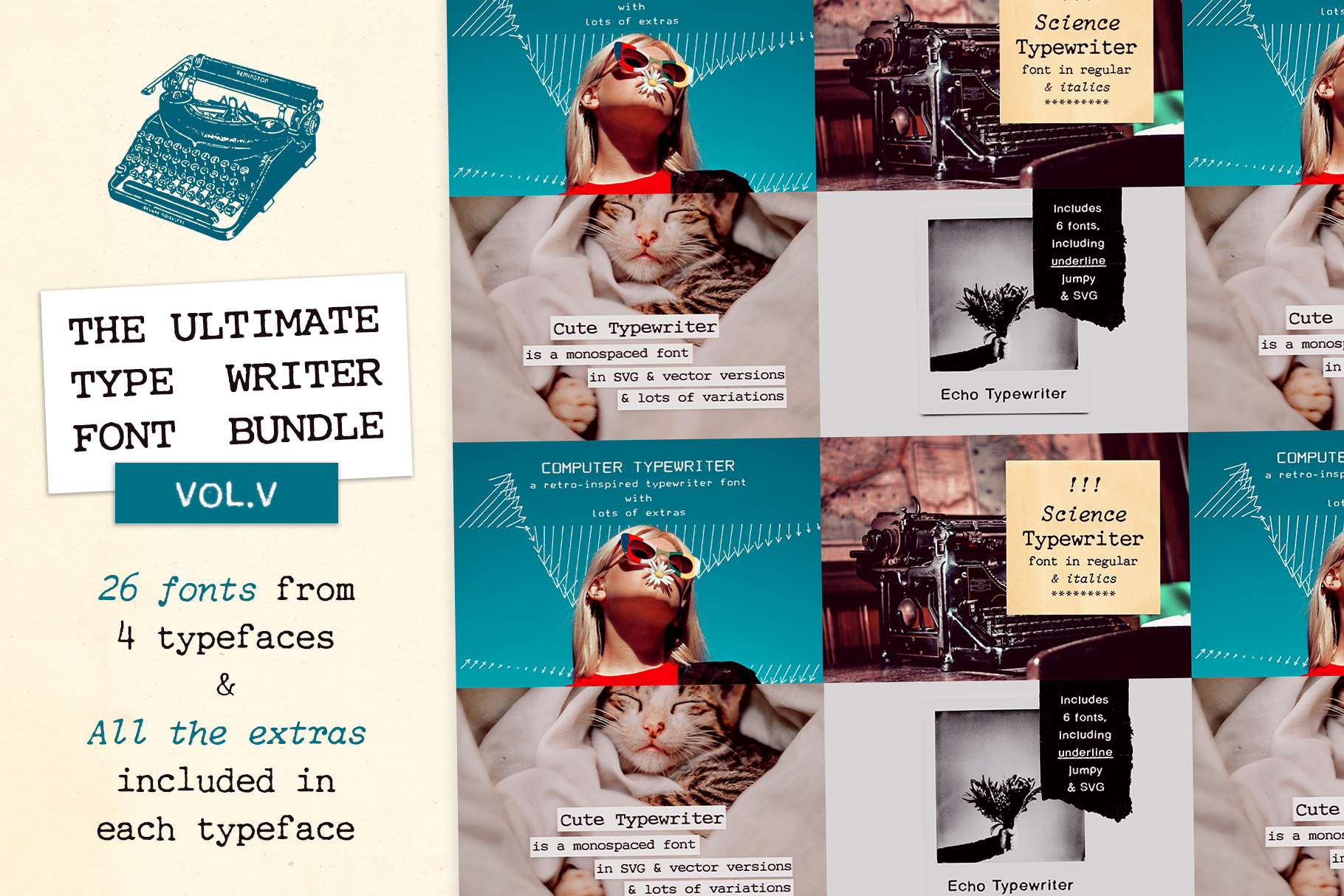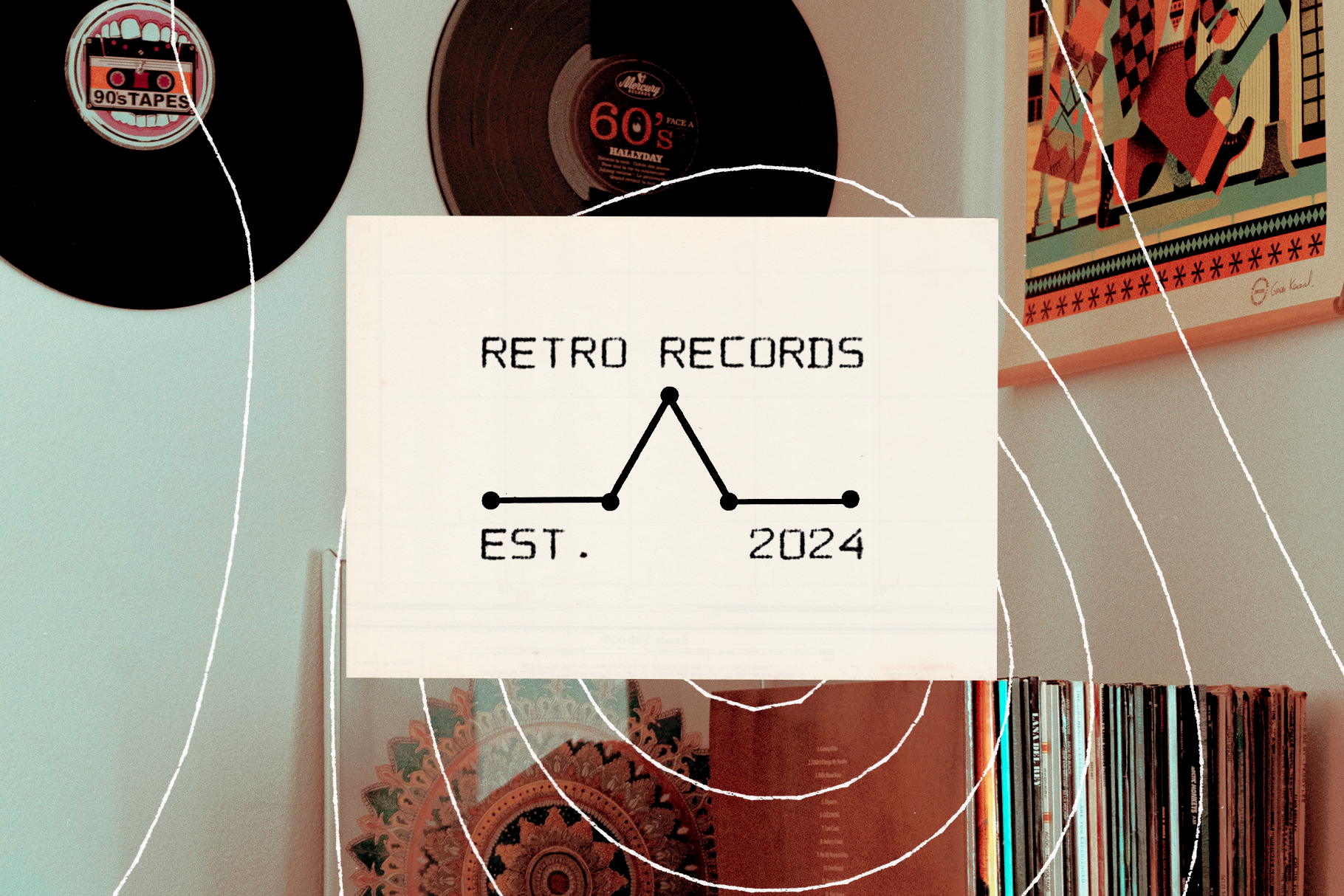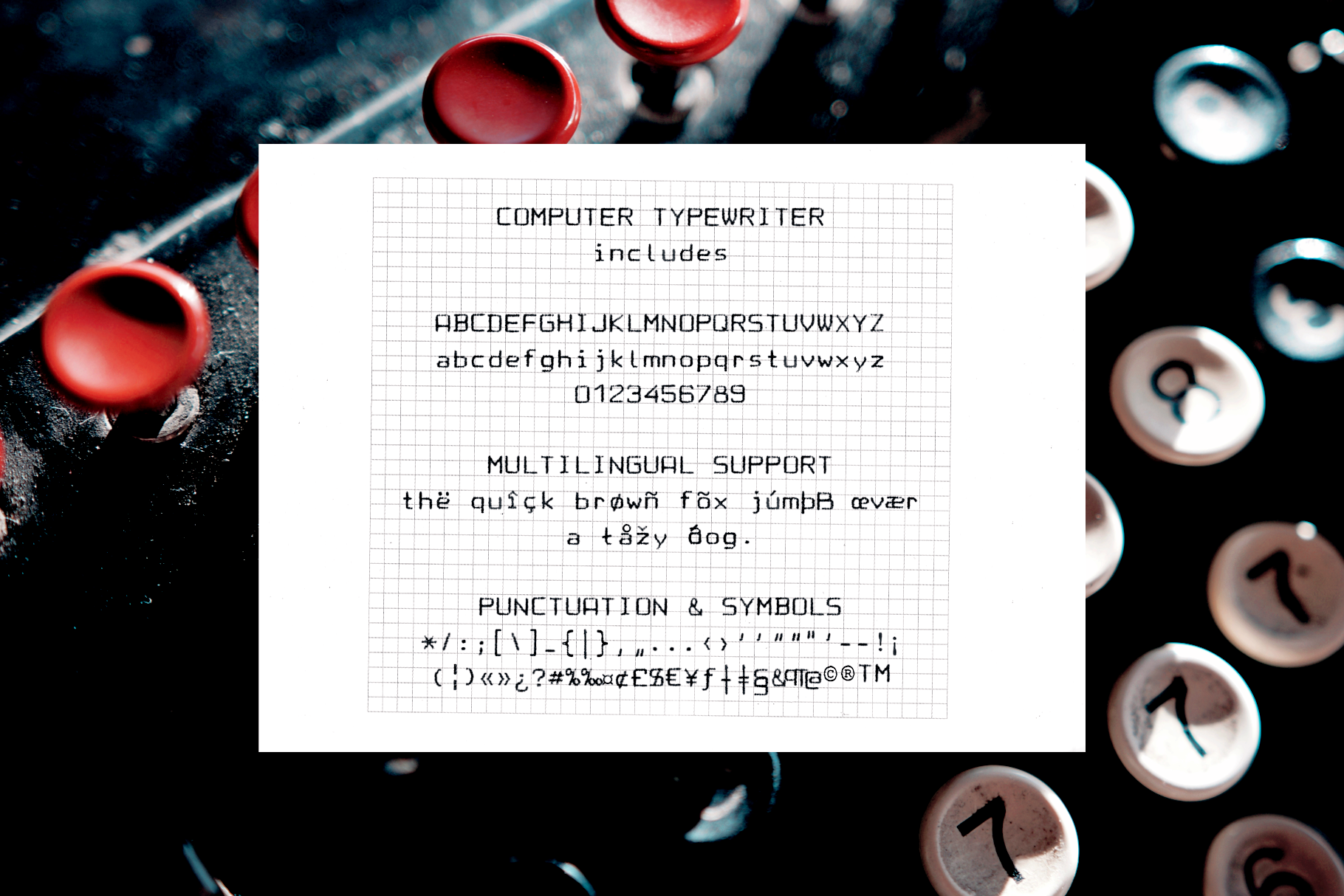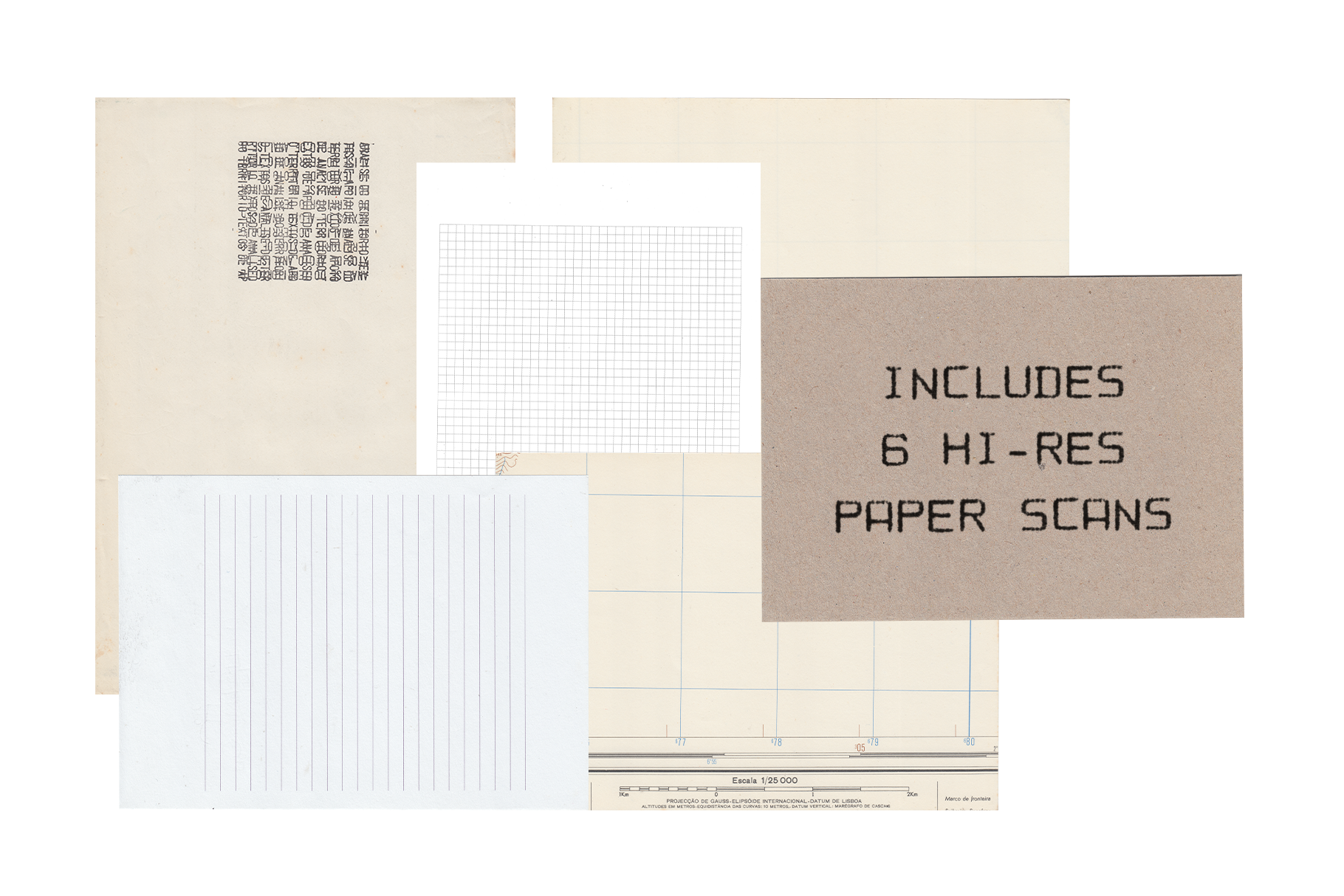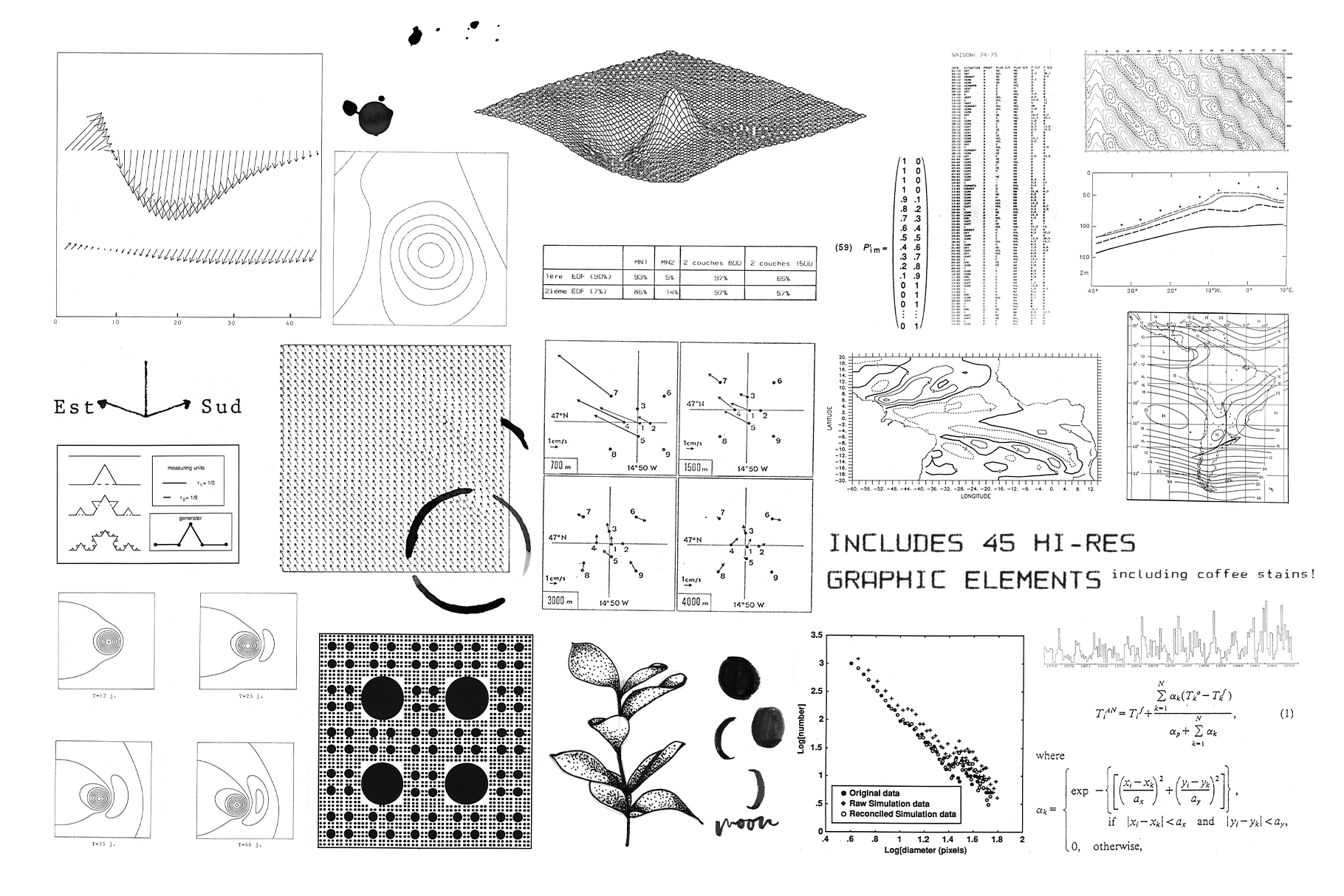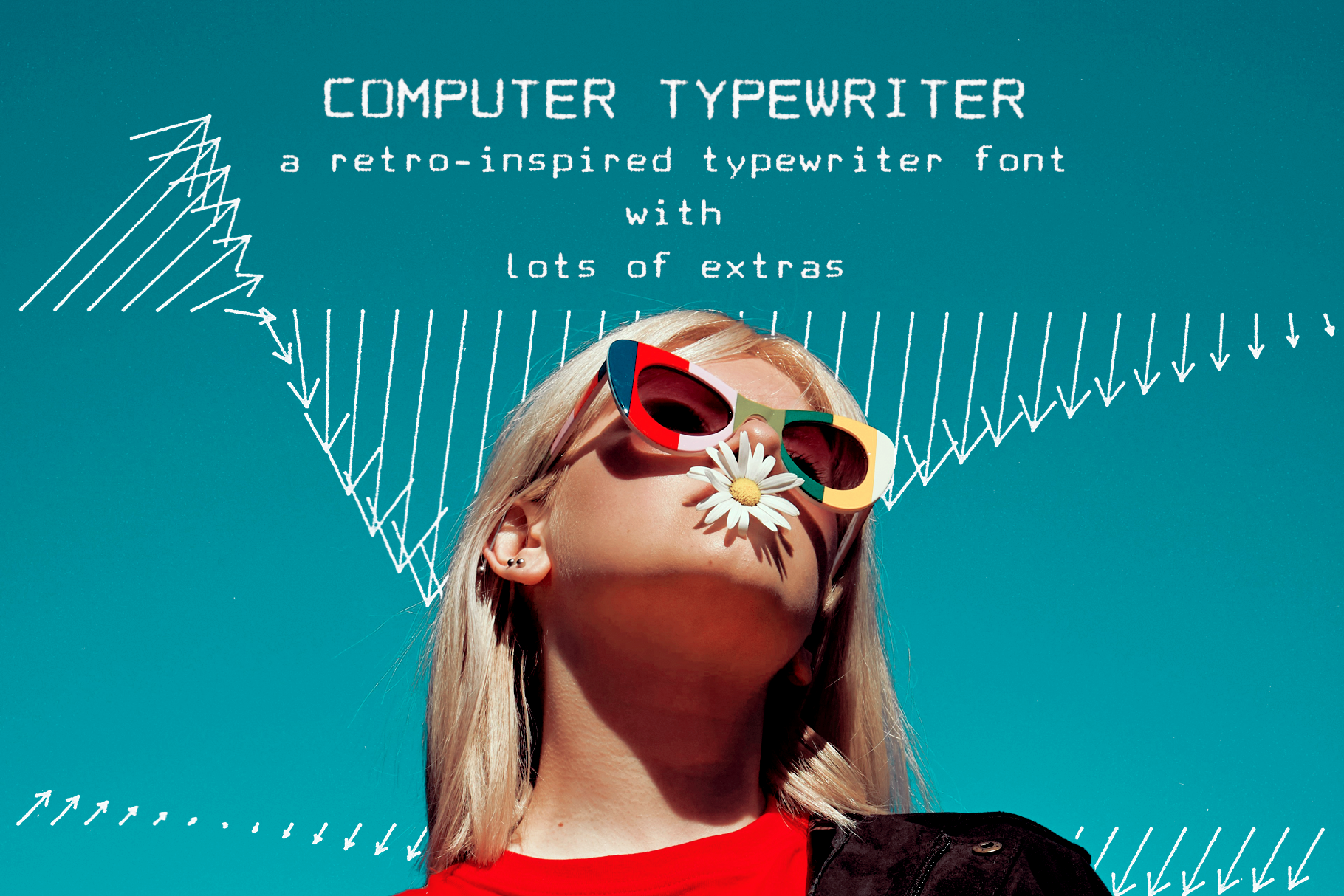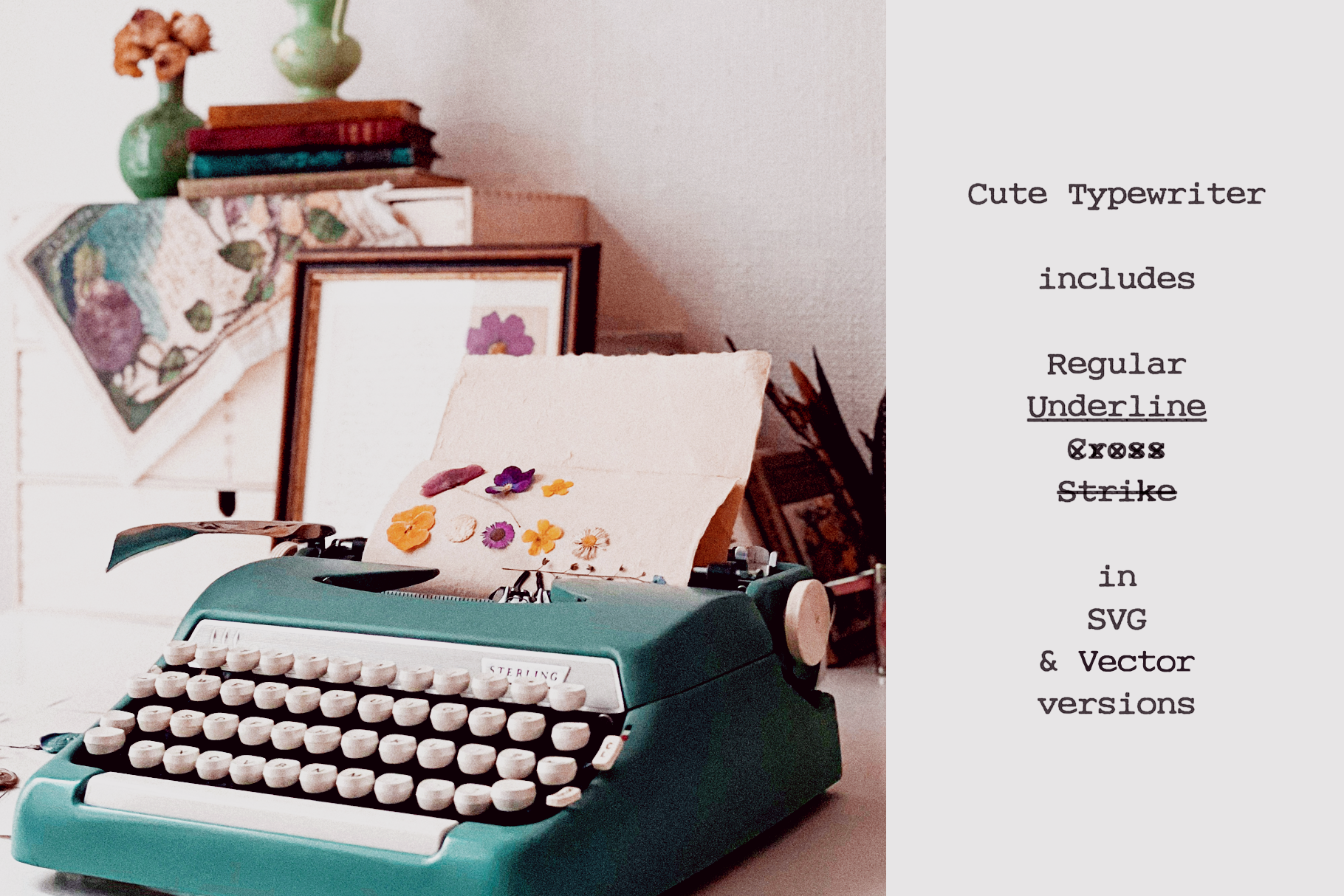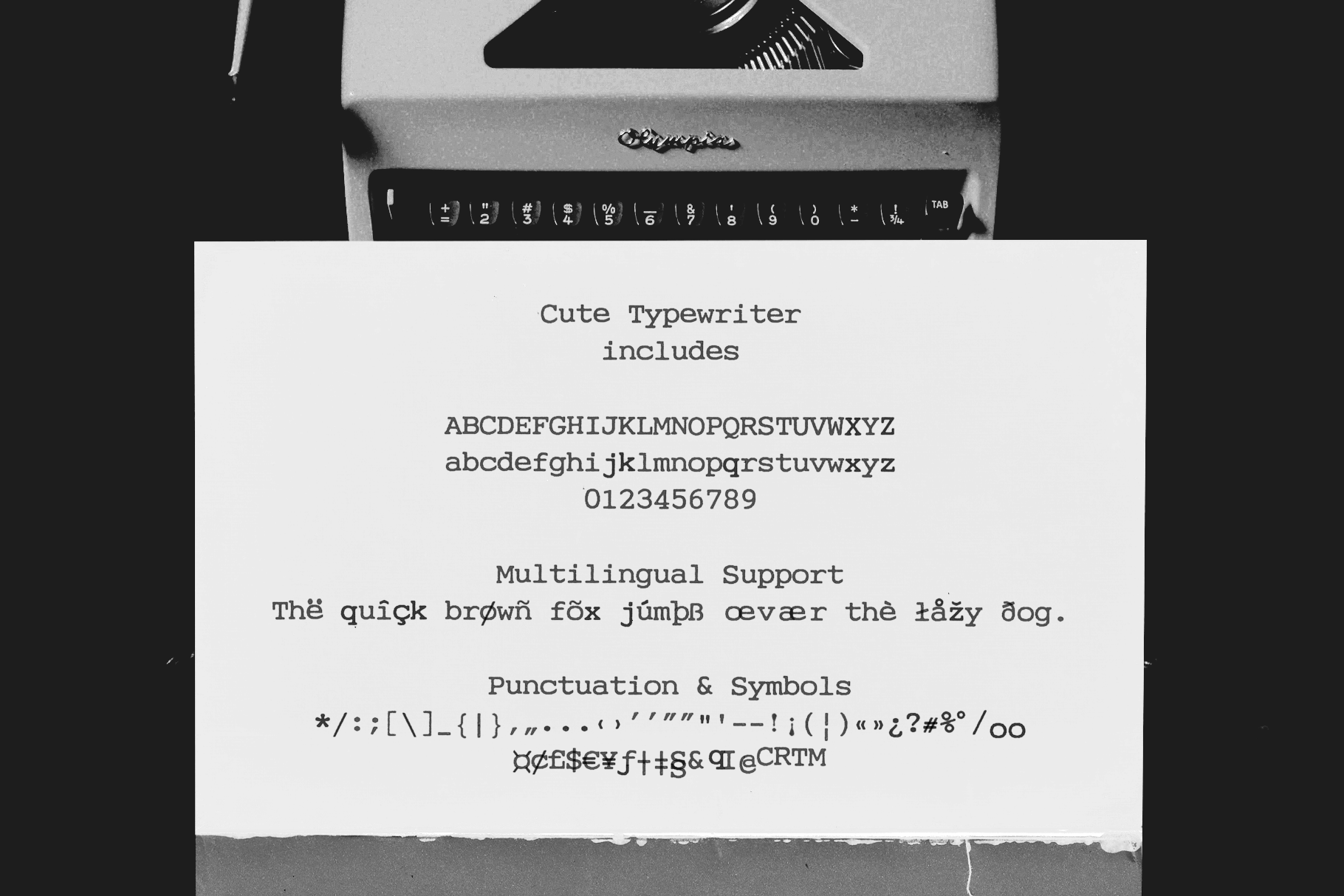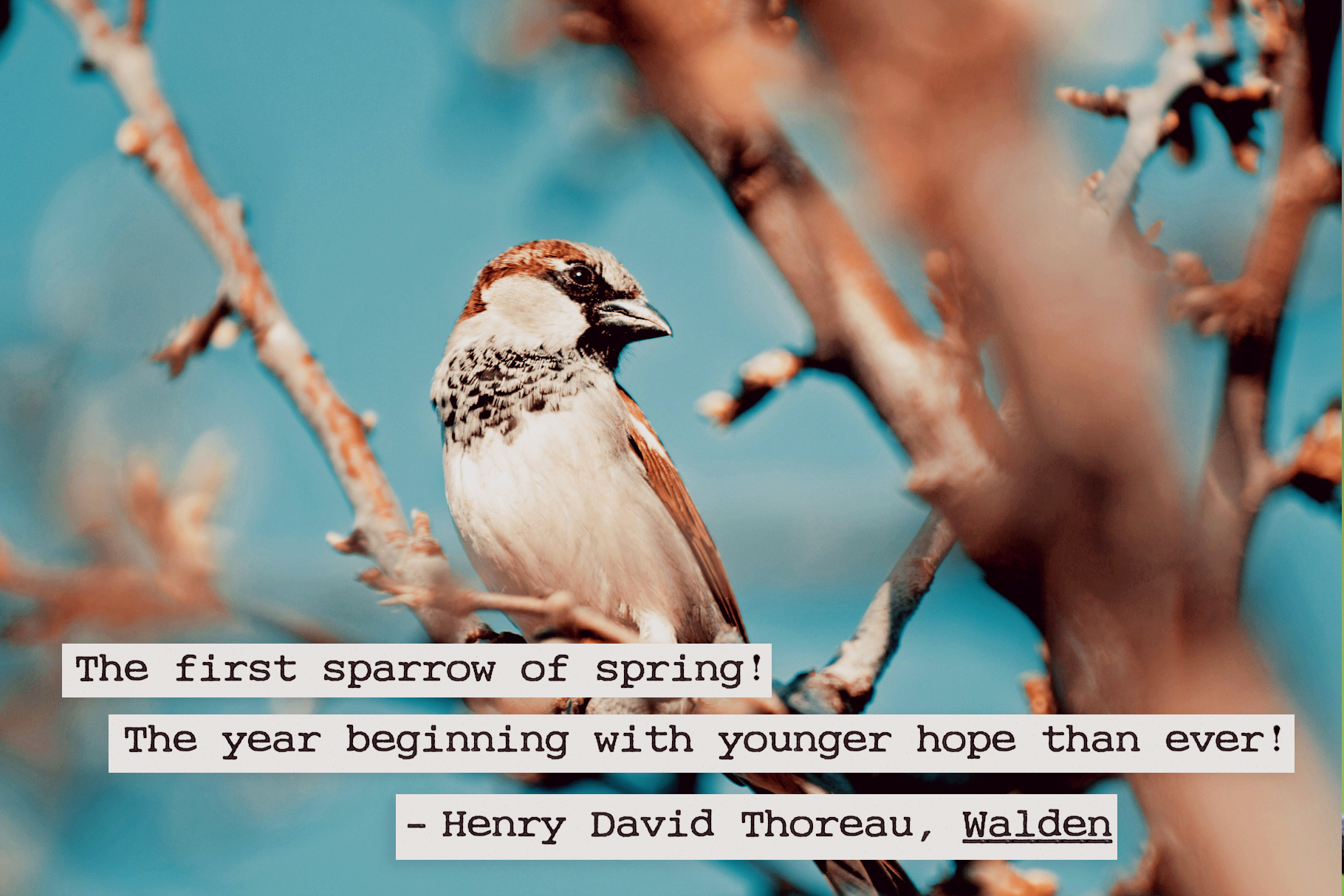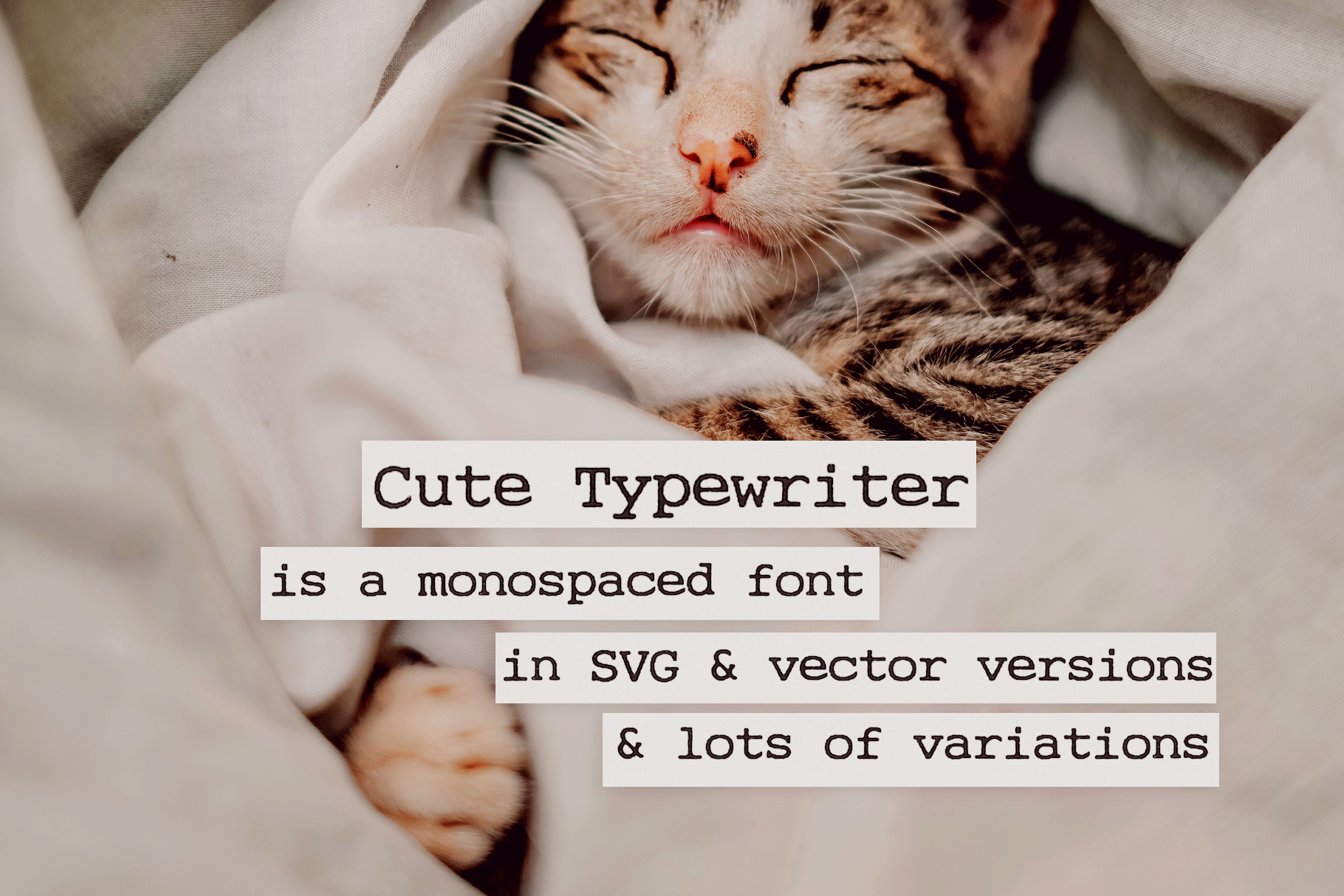
Typewriter Font Bundle Vol. 5
Ana's Fonts
Typewriter Font Bundle Vol. 5
Typewriter Font Bundle Vol. 5 by Ana's Fonts is their fifth bundle of typewriter fonts.
It includes 4 different typewriter style font families with 26 total font files, from regular serif to sans serif. SVG versions and contextual alternates are included when available for extra texture and realism.
This set also includes all the extras included in the individual products, such as vintage paper scans and design elements with transparent backgrounds.
Use this set in any designs that needs a vintage touch. Use it in long or short texts, in digital collages, branding and packaging, social media posts, logotypes, etc.